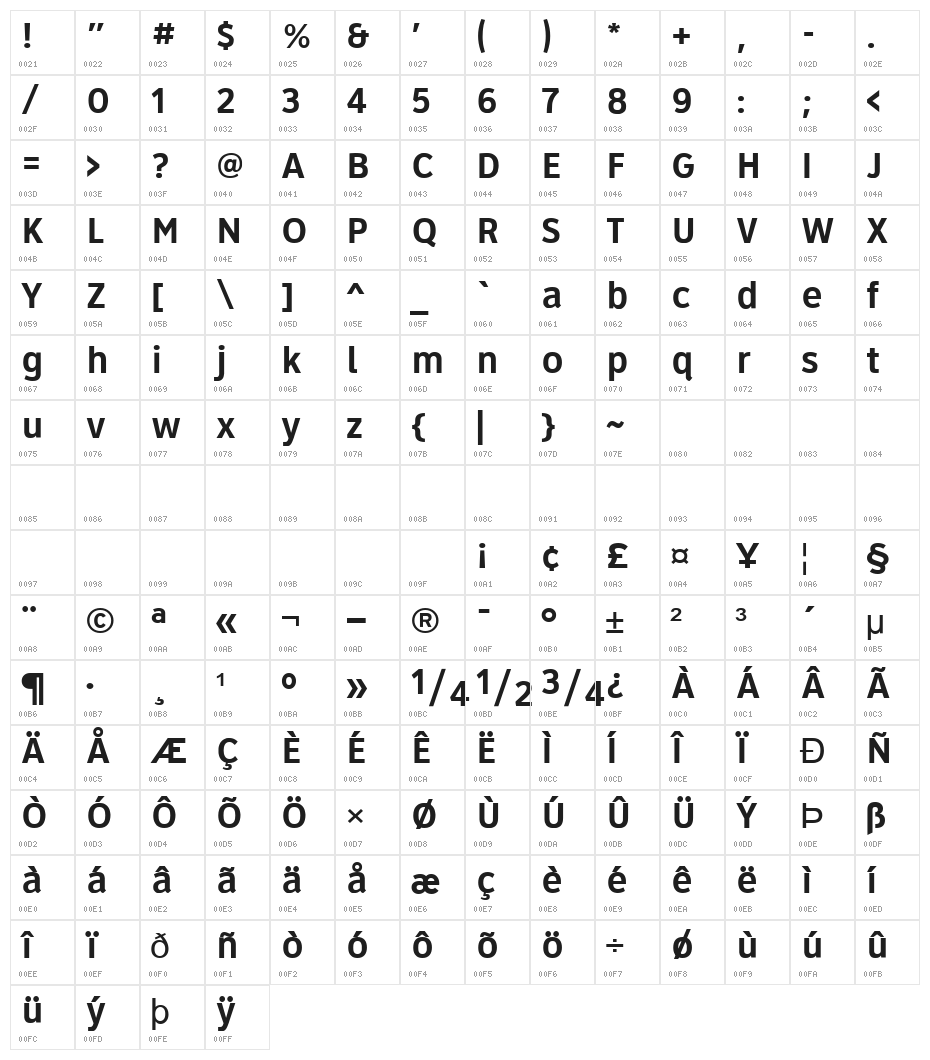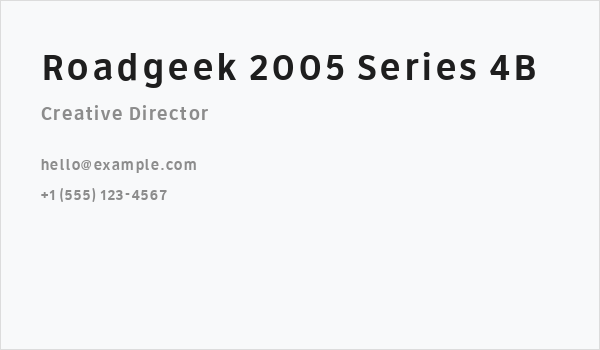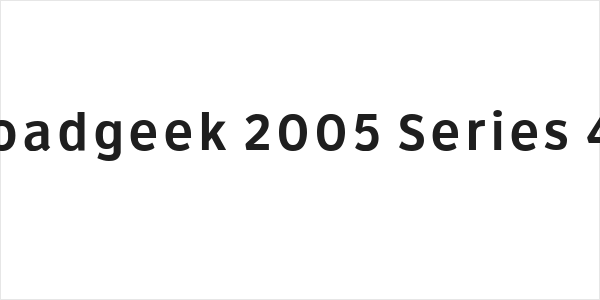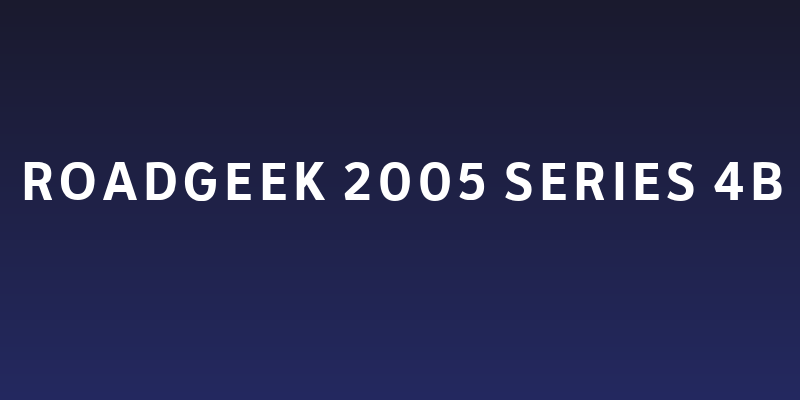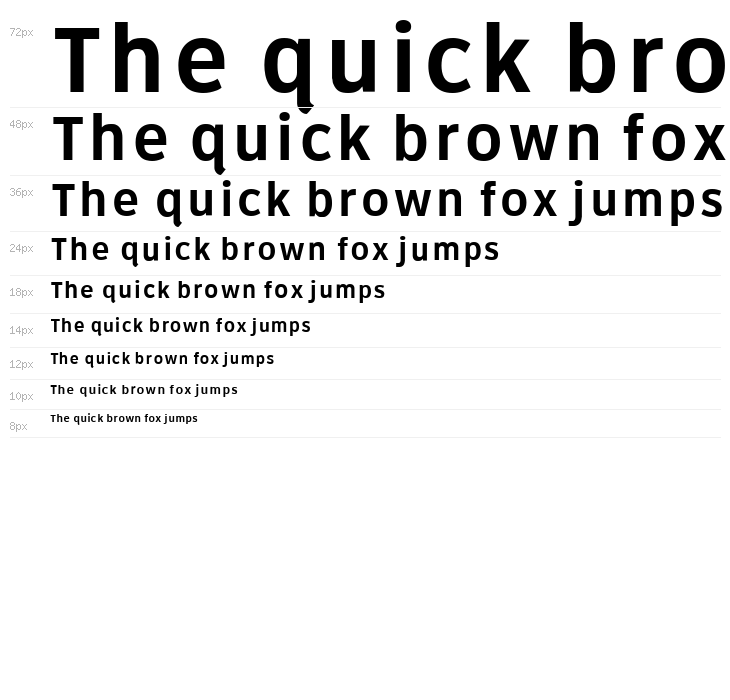
Roadgeek 2005 Series 4B Font
Roadgeek 2005 Series 4B Description
This font features a clean and straightforward design, characterized by its sans-serif style. The letters are bold and evenly spaced, providing excellent readability. The uppercase and lowercase letters maintain a consistent weight, contributing to a uniform appearance. The numerals are clear and distinct, making them easily distinguishable. Special characters are well-defined, adding to the font's versatility. The overall design is modern and functional, suitable for various applications where clarity and simplicity are paramount.
| Use Case | Headlines, Signage, Instructional materials |
| Proposed Projects | Ideal for road signage, instructional materials, and any project requiring clear and legible text. |